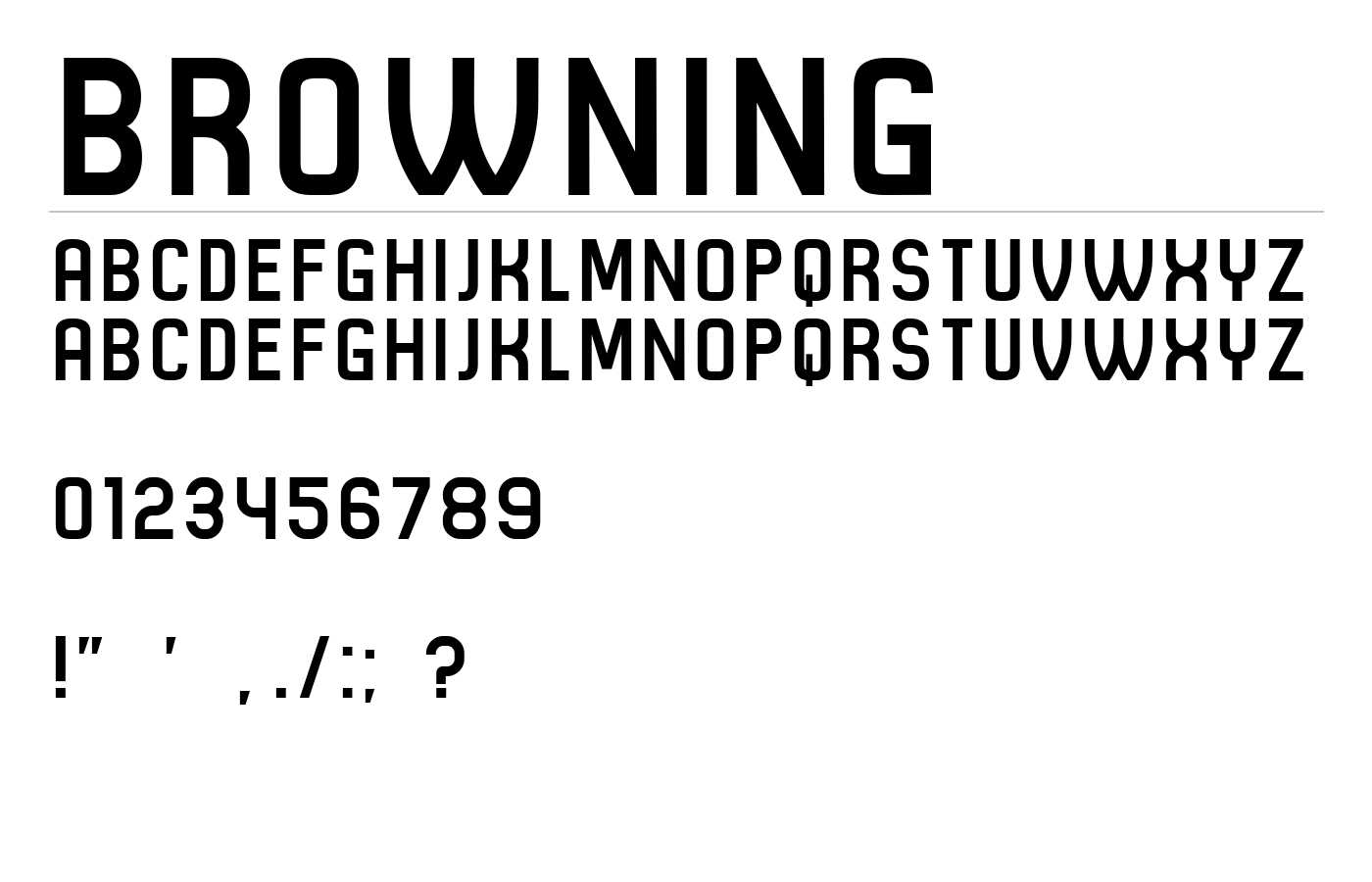
Browning is a sleek, condensed sans serif font with a modern and industrial feel, characterized by its tall, narrow letterforms and uniform stroke weight. Its clean and minimal design makes it an excellent choice for headlines, branding, and editorial work where a bold and contemporary look is desired. This font works well for projects needing a strong, authoritative presence without sacrificing readability.
Browning Font
About Browning Font
| Font family | Browning Font |